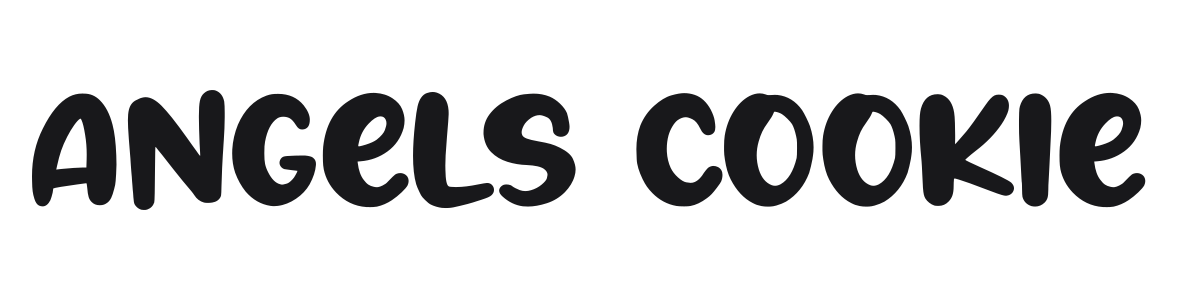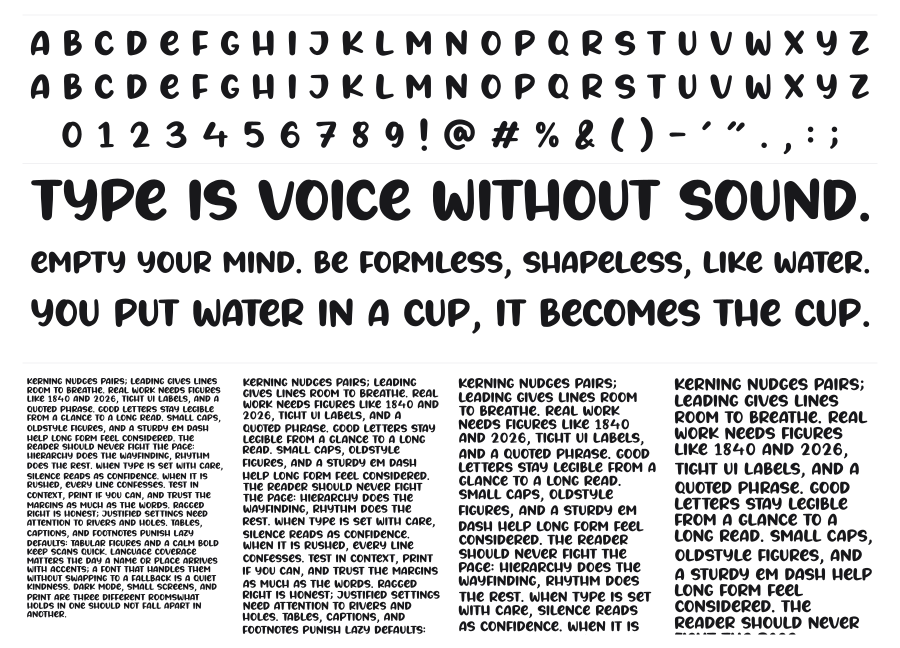
Angels Cookie
Angels Cookie is a bold rounded display font with thick, chunky strokes and a warm, bubbly personality. Every curve is soft and full, calling to mind hand-drawn lettering on a bakery sign or children's book cover. It carries genuine warmth without trying too hard.